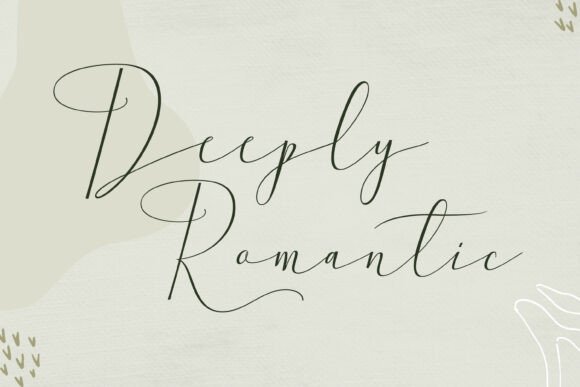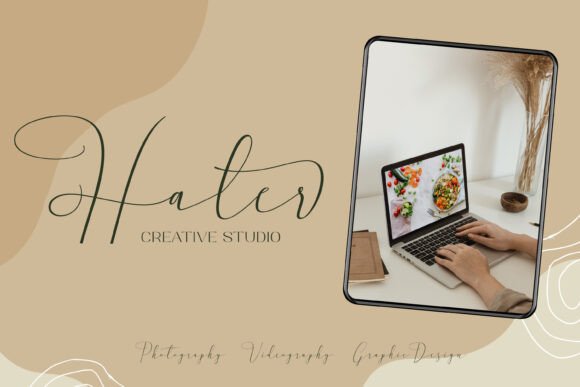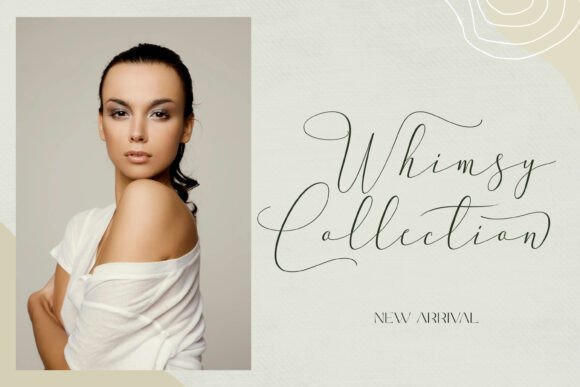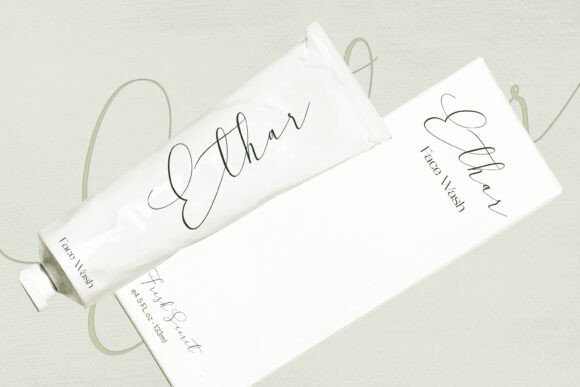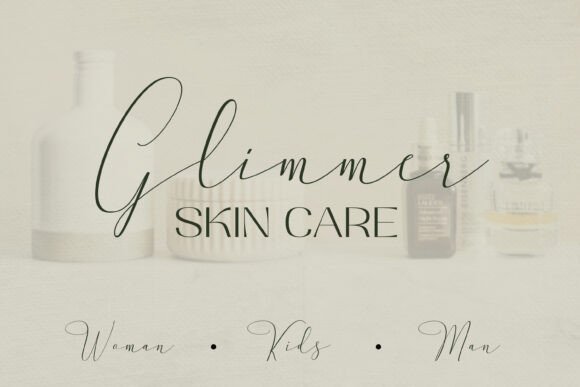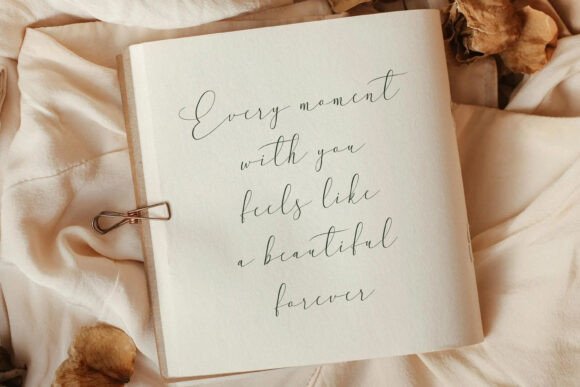
Introduction to Methand Font
Do you remember the moment when a beautiful handwritten font took your design to the next level? For many designers, it’s that instant spark that elevates a creative project from ordinary to extraordinary. The right font can convey emotions, set the tone, and make your message stand out. In this article, we’ll explore the Methand Font – a stunning script font that will add a personal, stylish touch to your projects.
As a valuable design resource, the Methand Font is a must-have for any creative professional. With its smooth, flowing curves and natural hand-drawn feel, this high-quality font is versatile and easy to use. Whether you’re aiming for a chic, modern look or a warm, playful tone, Methand Font is the perfect choice for adding a touch of elegance and charm to your designs.
Key Features of Methand Font
- Perfect for use in logos, branding materials, and other design elements where a modern and sleek look is desired.
Honest Review: Methand Font
Methand Font is a versatile and modern design resource that can elevate any creative project. With its sleek and clean design, it’s perfect for anyone looking to add a touch of sophistication to their work.
- ✨ High quality design that’s perfect for creative projects
However, I did encounter a few limitations with the Methand Font.
Overall, I’m impressed with the Methand Font. Its modern design and free download make it a great addition to any designer’s toolkit. While it may have some limitations, it’s a solid choice for creative projects that require a high-quality, versatile font.
Methand Font
Methand Font is a high-quality, free design resource that offers a unique and creative touch to any project. This versatile font features a transparent background, making it perfect for any design application.
Tips for Getting the Most Out of Methand Font
To get the most out of Methand Font, experiment with different font sizes, colors, and styles to create a unique and eye-catching design. You can also use it in combination with other design elements, such as graphics and images, to create a cohesive and engaging visual identity.
Common Use Cases for Methand Font
Methand Font is perfect for a variety of design applications, including logos, business cards, brochures, and social media graphics. It’s also a great choice for creating engaging headlines and titles for presentations, documents, and websites.
Alternatives to Methand Font
Great Vibes Font is a modern, elegant script font suitable for creative projects, invitations, and wedding cards. It’s available for free download with a transparent background, making it a great design resource for designers. Great Vibes Font is ideal for projects that require a touch of sophistication and high quality.
Compared to Methand Font, Great Vibes Font has a more refined and polished look, making it a great alternative for designers who want to create a more luxurious feel in their designs.
Pacifico Font is a beautiful, cursive script font that’s perfect for creative projects, such as brochures, magazines, and advertising materials. It’s a high-quality font that’s available for free download with a transparent background, making it a great design resource for designers.
Pacifico Font is similar to Methand Font in terms of its elegant and sophisticated look, but it has a more relaxed and casual feel, making it ideal for projects that require a more laid-back tone.